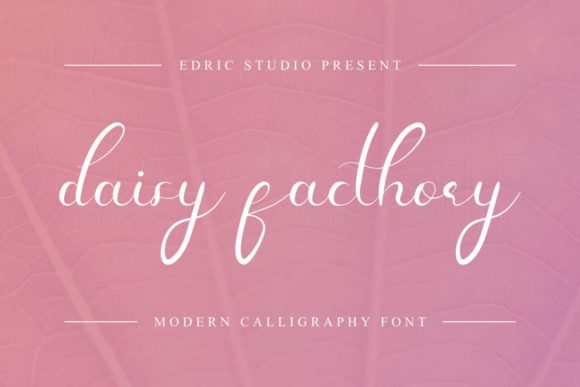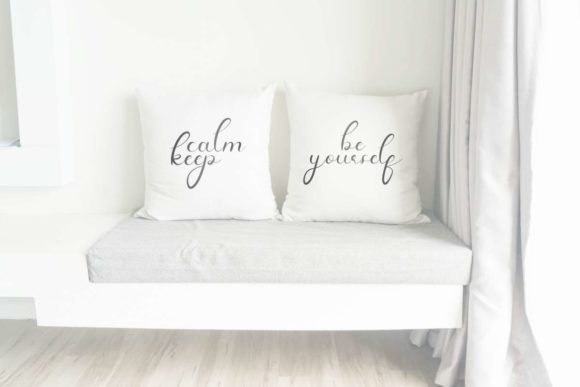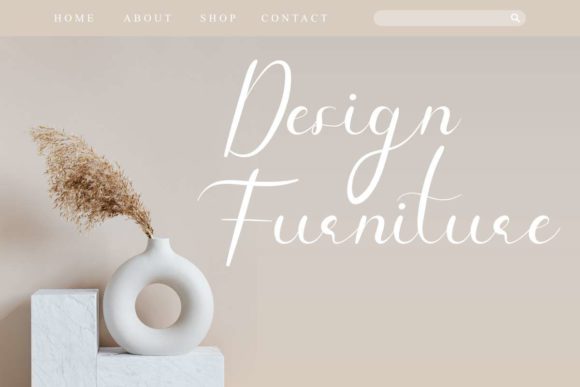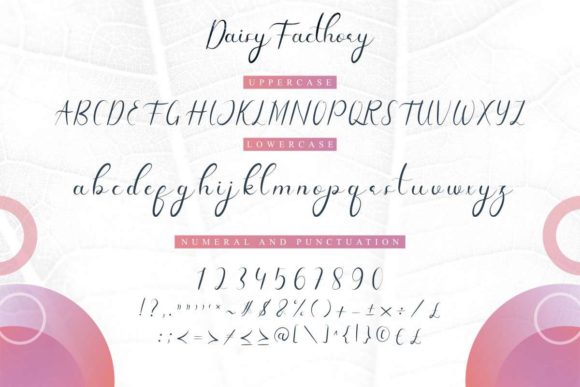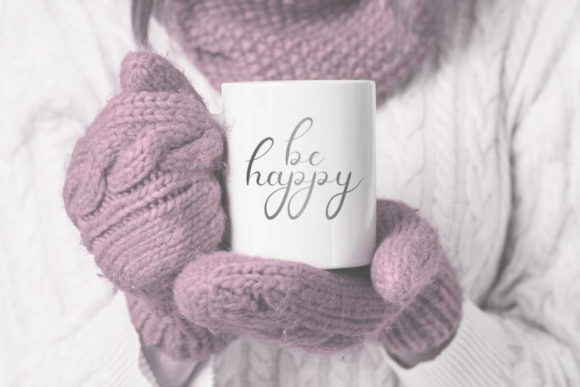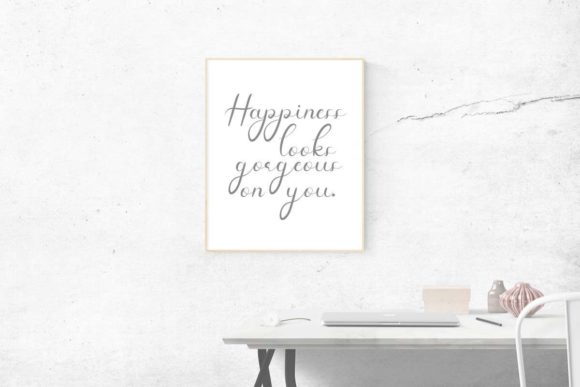
Introduction to Daisy Facthory Font
Daisy Facthory is a lovely and flowing handwritten font.
Its timeless style makes this font particularly adept to a wide variety of designs, both formal and non-formal Let your imagination be the limit.
Daisy Facthory Font offers exceptional quality and versatility, making it a valuable addition to your design toolkit. Whether you’re creating for personal projects or commercial use, Daisy Facthory Font delivers professional results.